Many fonts come in unique typography, but romantic fonts are always a treat. Their charming ligatures and varying weights look great in various emotion-themed projects. Whether designing for weddings or branding projects, taking the perfect lovey-dovey typeface is key to expressing your desires.
To help you find the best match, we’ve compiled a beautiful set of romantic typefaces from our collection. Let’s catch up on the recipe and start reading!
12 New Romantic Fonts for Your Design
Create more enticing designs with flirty yet lovely nuance utilizing the font selection below!
1. Eugellyca Handwritten Script
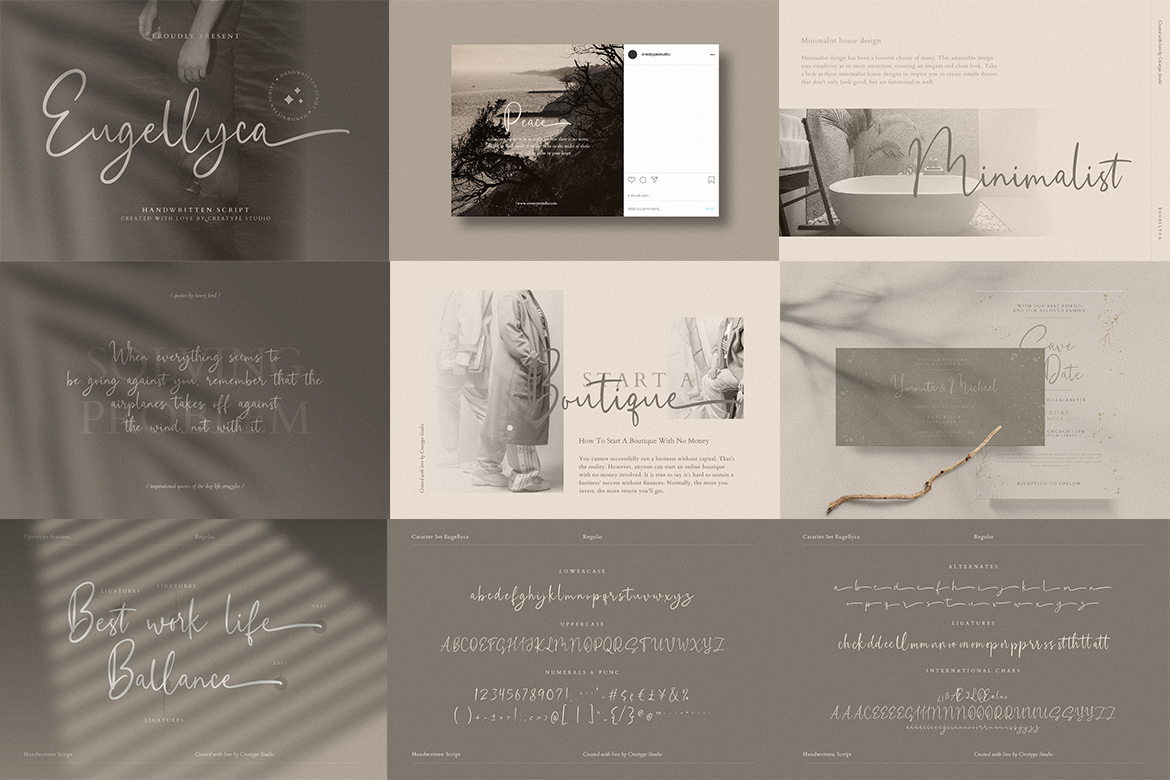
Firstly, the font in the list is Eugellyca, with its brand-new calligraphy-style typeface. This handwritten script is a signature collection featuring a feminine touch to stick out the charming feel. Its long connecting strokes with thin ligatures make it an exquisite option for any soft-romantic design project, including photography, or product labels.
2. Wyattruly Luxury Script
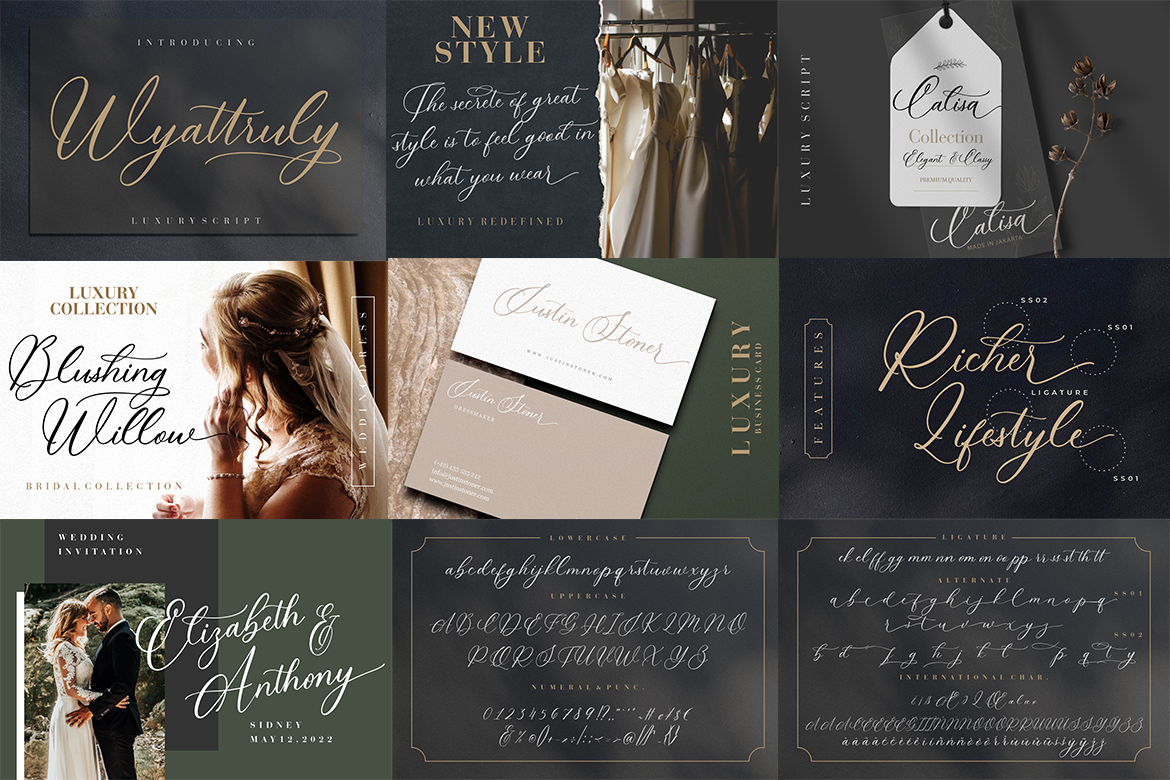
A romantic branding artwork should be snappy and full of brush. Mild yet edgy, Wyattruly looks like strokes on a gazette. The thick-thin combos in the uppercase represent the execution of the love scene. While the script looks clear in every single letter, it also has delicate ligatures to enhance the aesthetic writing vibe.
3. Graphire Modern Elegant Serif
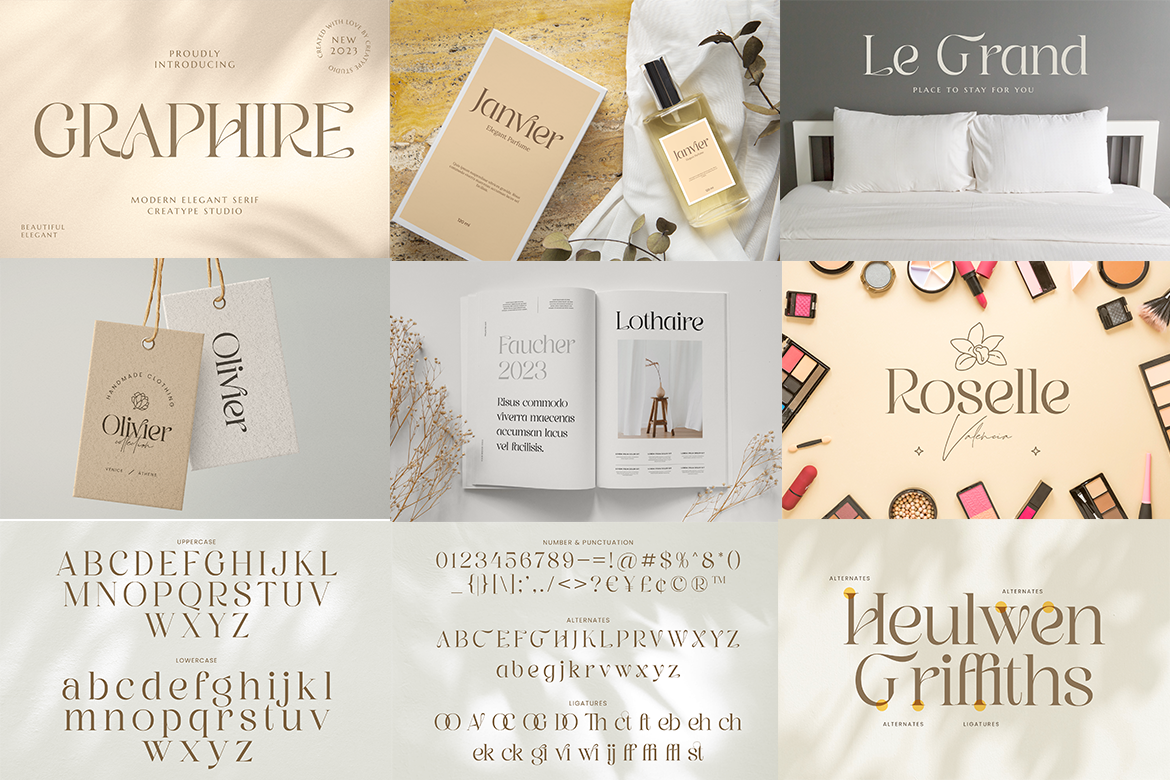
Love is sometimes bubbly and joyous! Graphire embodies the gold-classic vibe of a modern touch. That said, it adds a heavy and natural feel to various kinds of romance titles.
This serif typeface also has a greater readability due to tighter letter spacing with a twist. Plus, the contrast between lines and curves shows your brand’s elegance in a lovely way.
4. Vegawanty Modern Serif
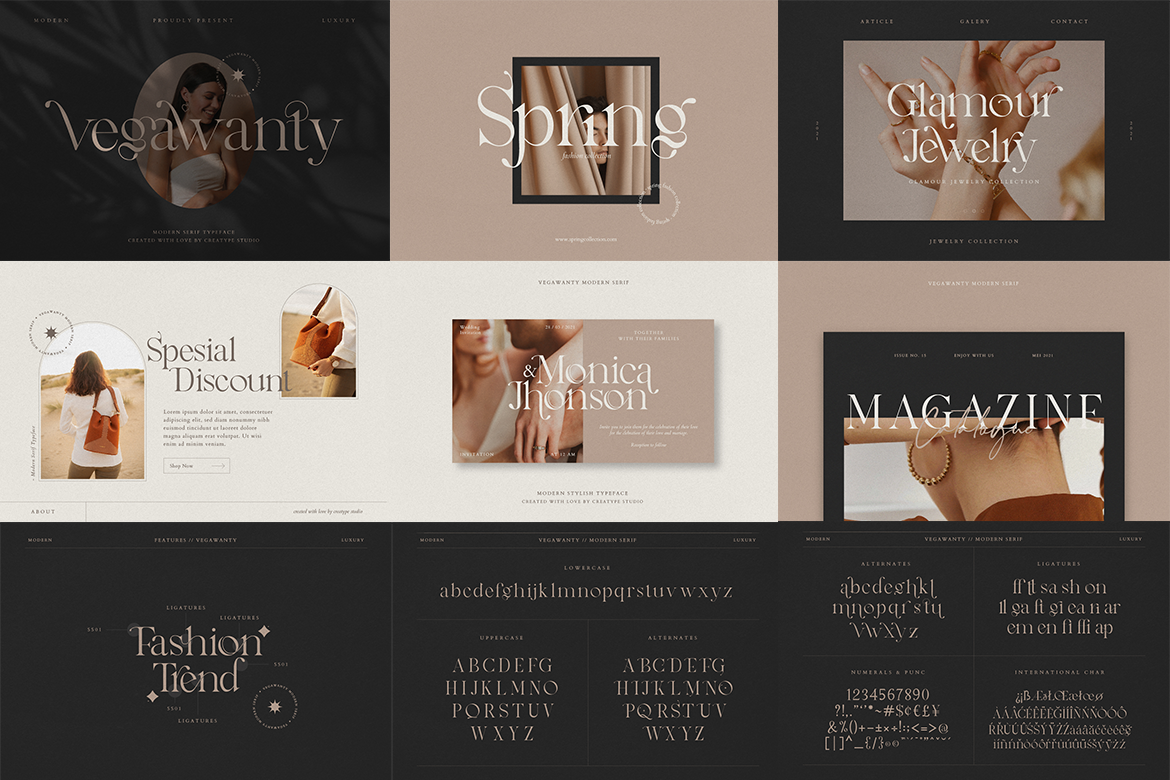
Vegawanty is your choice of romantic love font that has a stylish appearance featuring its thick modern decorative strokes. This sleek serif font comes with high-contrast letterforms and stylistic alternates that add a refined luxury flair to wedding theme projects.
5. Vallery Qylmor Modern Elegant Serif
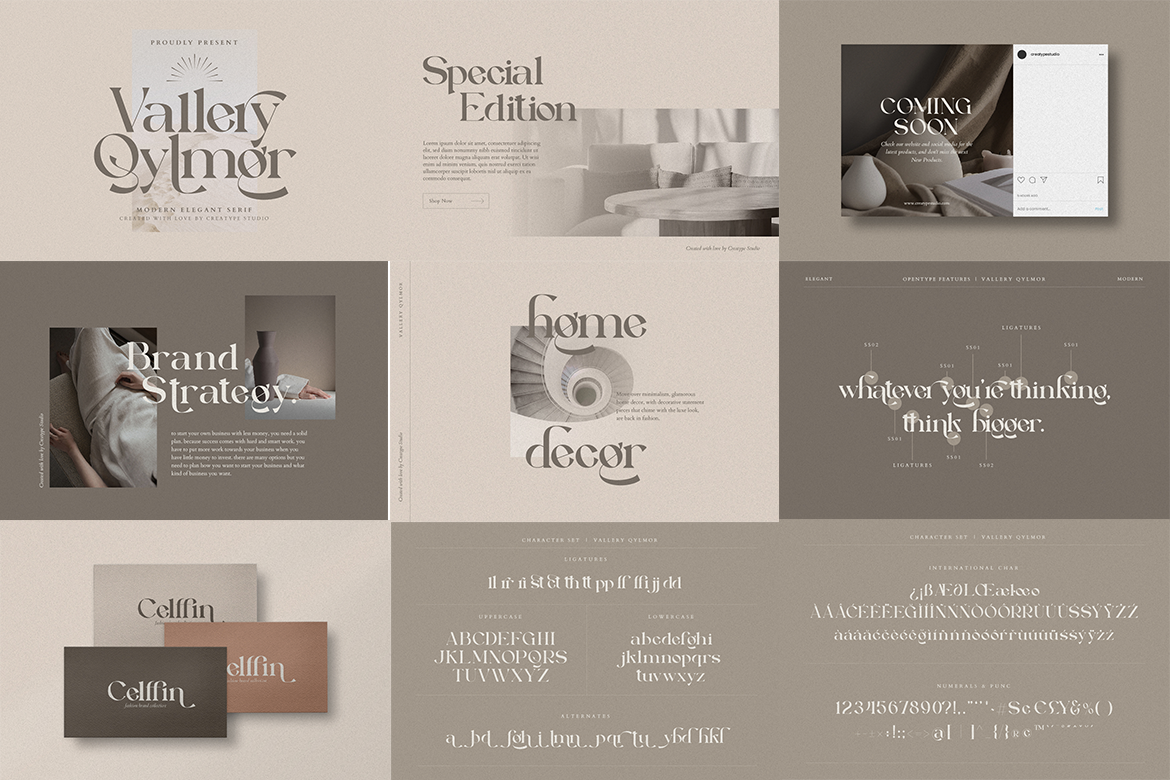
The contemporary Vallery Qylmor is perfect for your save-the-date heading. The artistic alternates in break parts make it look chic yet stylish under one roof. Its beautiful curves and hard legible axis also present a harsh romantic image to the public.
6. Aurelye Modern Calligraphy
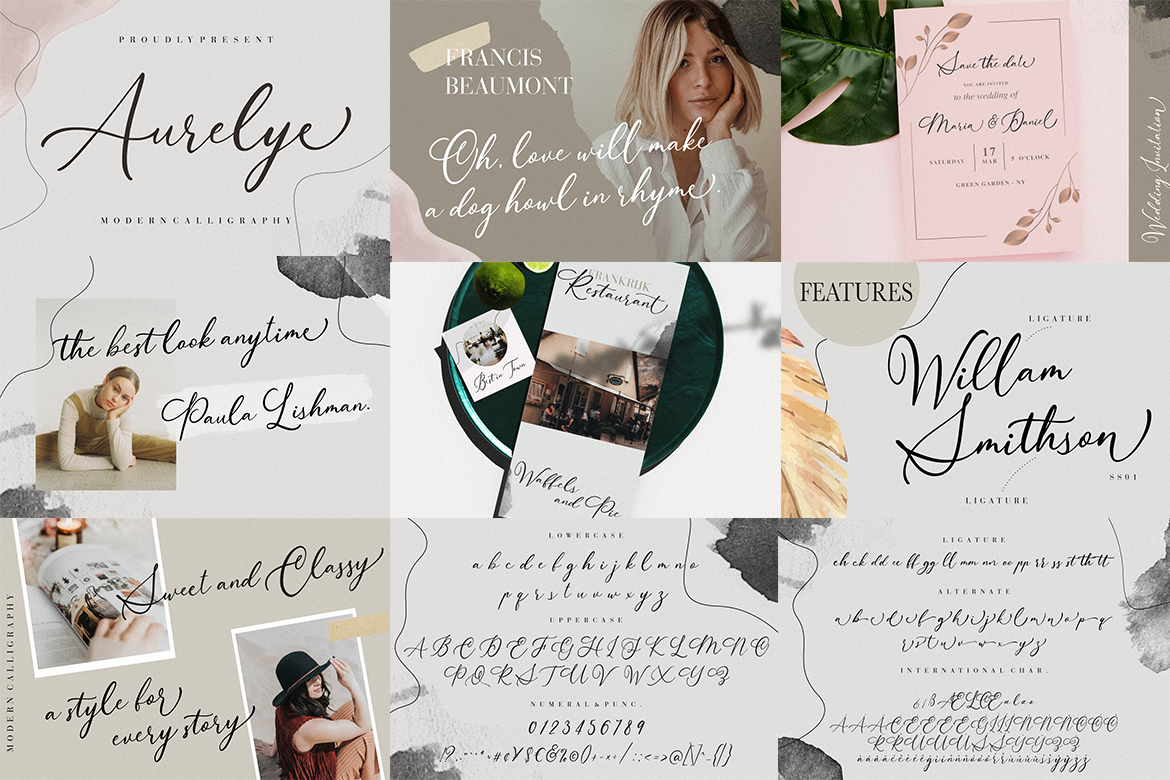
Aurelye is one of the romantic fonts in calligraphy mode that presents a bit of bold but straight style at the same point. With elements that form energetic romance, this font comes with simple swashes and elegant curves to embellish the designs with romantic or lovely stories.
7. Sebastian Fashion Modern Serif
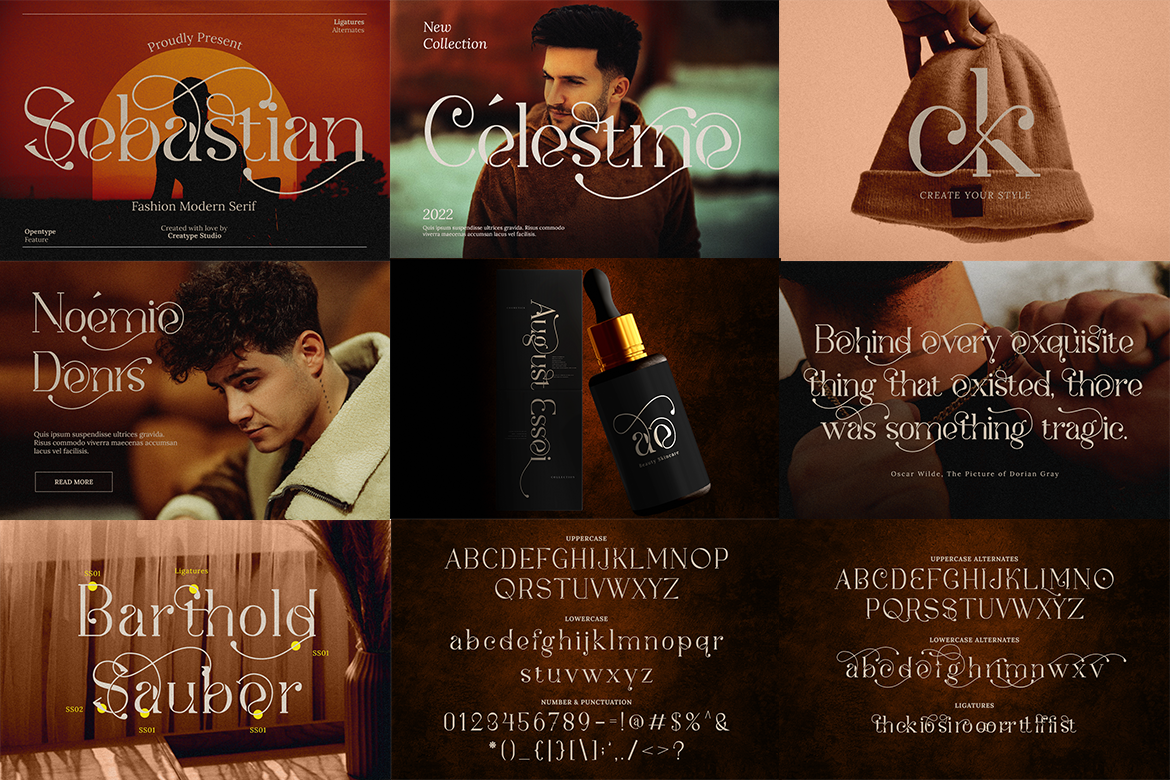
If you’re dreaming of a romantic fairytale typeface, Sebastian Fashion will best suit your needs. The long wavy tails of ascenders and descenders and thin strokes combo, make them appealing artworks with a Western-inspired atmosphere.
8. Westlynn Brush Calligraphy
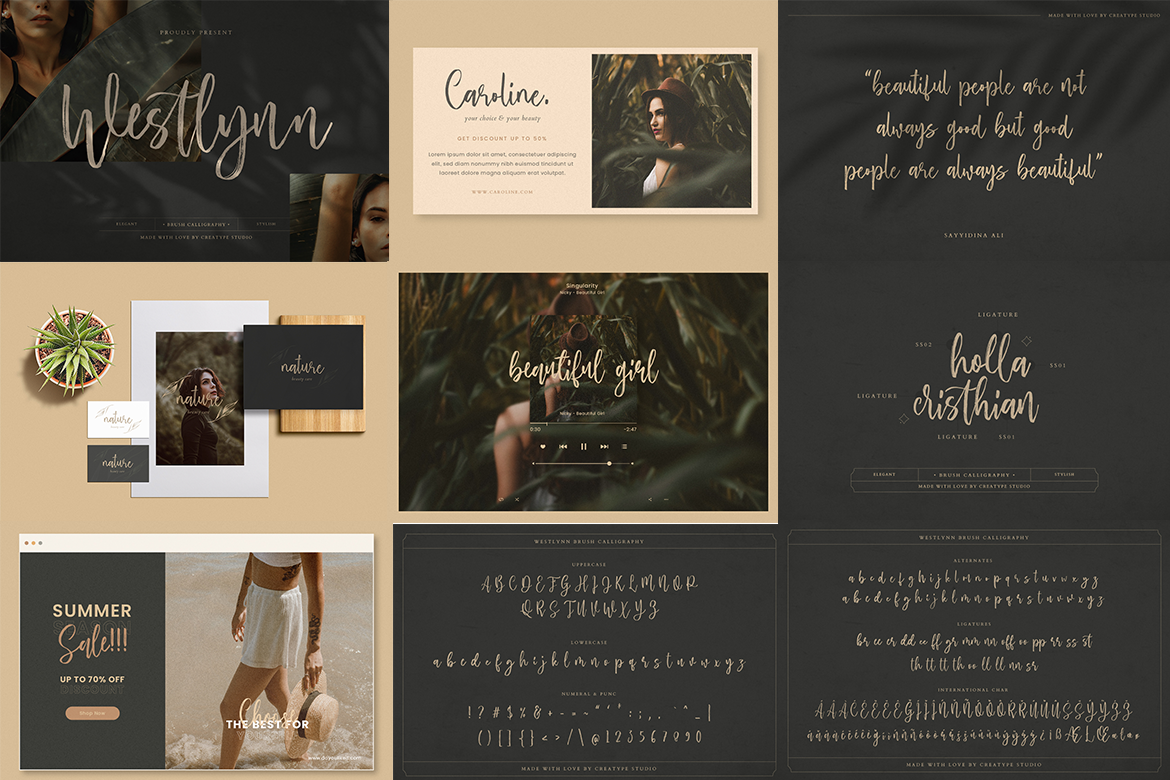
This new romantics font is a slim, crisp, and solid typeface to express the ethereal quality of a wedding project. Whilst it looks modest, Westlynn’s curvatures present bold alternates with attractive brush textures.
From wedding invitations to stickers, or luxury product designs, the font’s style is captivating and versatile to bring a sweet touch to your design.
9. Rosalina Stylish Serif
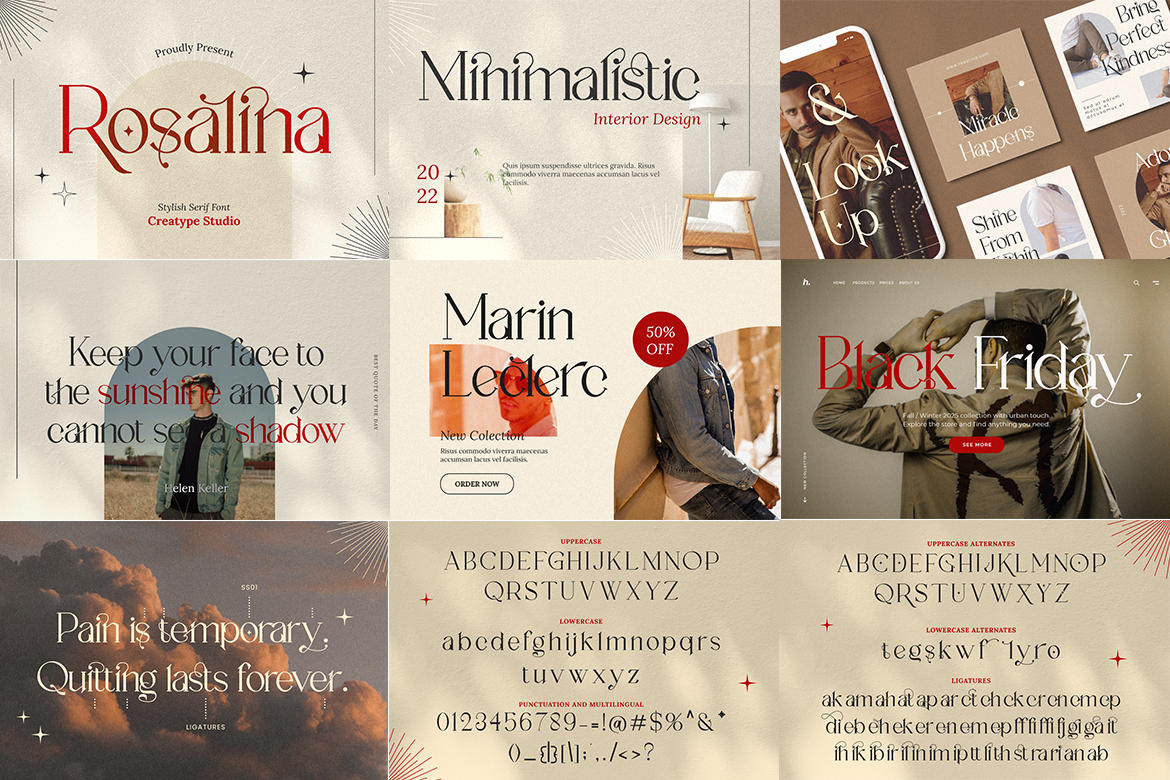
Another romantic Serif font option is Rosalina, which comes in a vintage essence. Built-in curvy Serif, sharp edges, and slightly aloof spacing, Rosalina will spice up your love artwork in a systematic way. Interestingly, the star dots appear to add a solid sweet touch to the design.
10. Manchester Signature Script
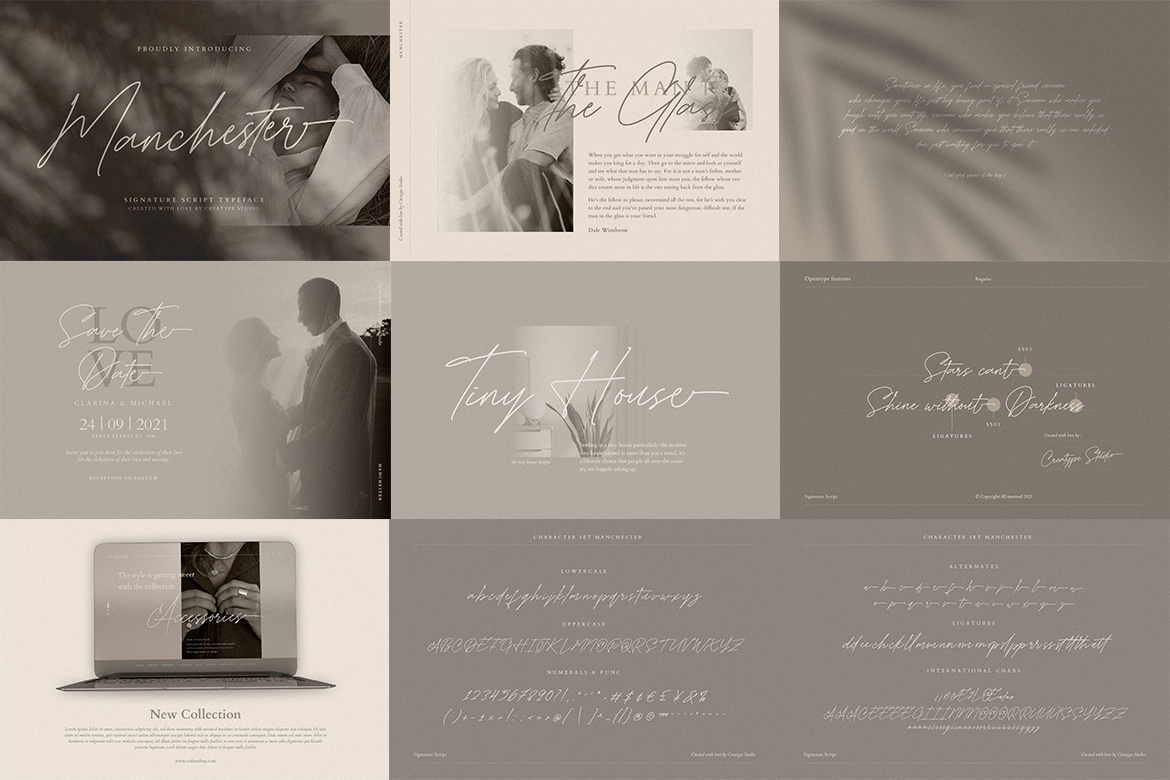
One of the romantic fonts with fine readability yet tempting is Manchester. This signature script typeface will look more effortful in conveying a genuine nostalgic and romantic mood through a single impression. It’s an exquisite design element for a wedding theme project with a dancing baseline and loving swash effects.
11. Moores Modern Serif
Compared to others in this list, Moores’s typeface looks stunning with a quirky geometrical style. Even so, this modern serif appears luxurious and feminine-appealing because of the crisp line corners. Plus, the timeless Moores is legible for catering the diverse lovey-dovey of modern to classic projects!
12. Koolegant Elegant Serif
Thinking about presenting a less-is-more concept for your romantic literature? So, it’s Koolegant turn to come out! This typeface is a peculiar match for artisanal artwork dedicated to expressing love. It’s because of sexy stylish extras, exuberant serifs, and artsy ligature line.
Hypnotise Your Audiences with New Romantic Fonts!
The aforementioned fonts are also crucial visual makers to meet your lovey-dovey artwork. Our collection of romantic typefaces will help you transform your designs into a more sophisticated and charming visuals.